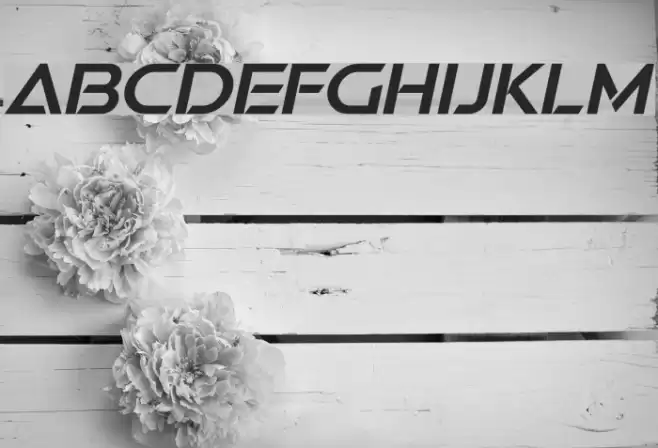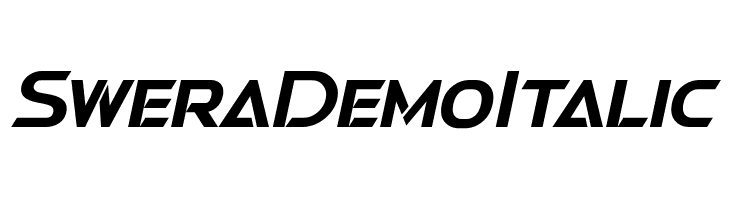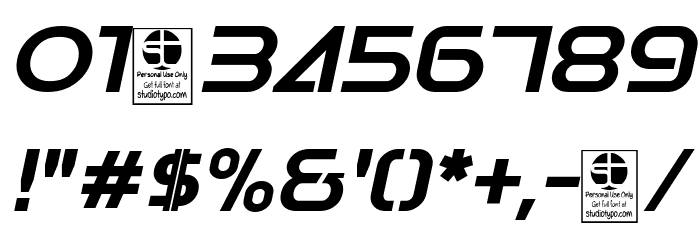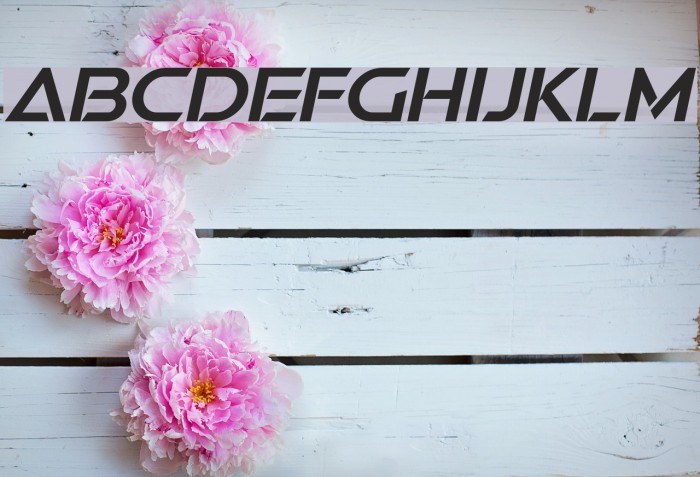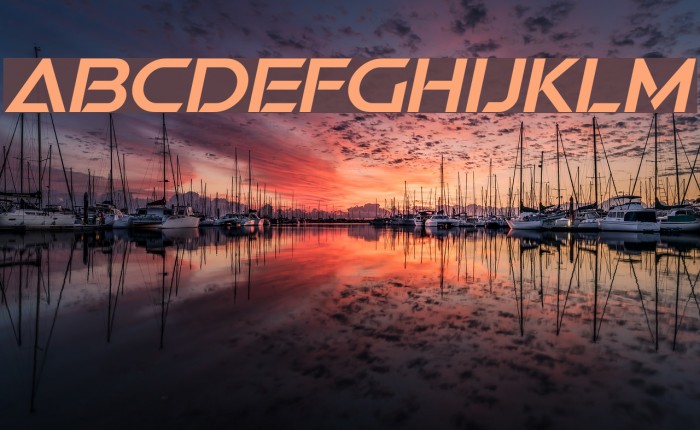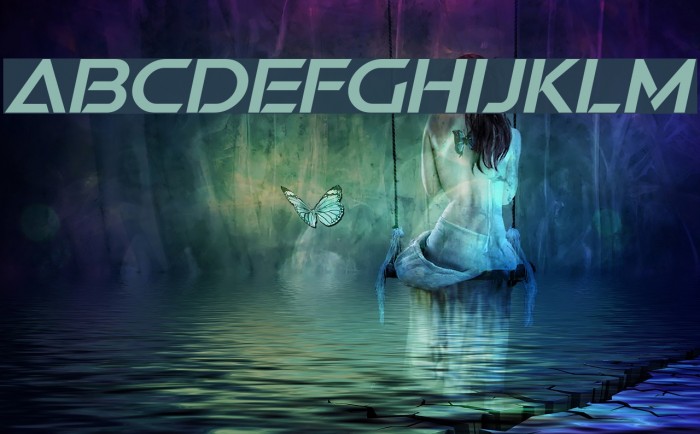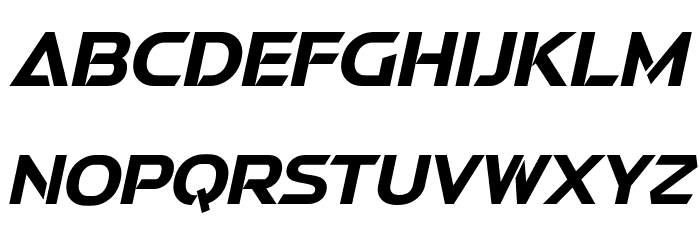
Swera Demo Italic Font
Swera Demo Italic Description
This font features a sleek, italicized design with a modern and dynamic appearance. The characters are slightly slanted, giving a sense of motion and speed. The strokes are uniform in thickness, providing a clean and consistent look. The uppercase and lowercase letters maintain a cohesive style, with sharp angles and a futuristic feel. The numerals and special characters complement the overall design, making it suitable for various applications. The font's geometric structure and precise lines make it ideal for projects that require a contemporary and energetic aesthetic.
A modern, italicized font with a sleek and dynamic design from Uncategorized fonts.
- Proposed Projects: Ideal for branding, sports team logos, technology-related designs, and modern advertising.
- Use Case: Logos, Headlines, Branding